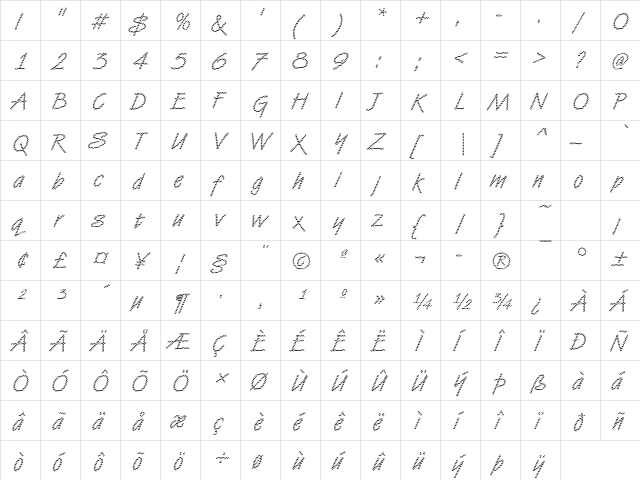
DTCVanDijkM06 Regular
Design Context for DTCVanDijkM06 Typeface
DTCVanDijkM06 is a composed and adaptable typeface that performs quietly and consistently across a wide range of design contexts.